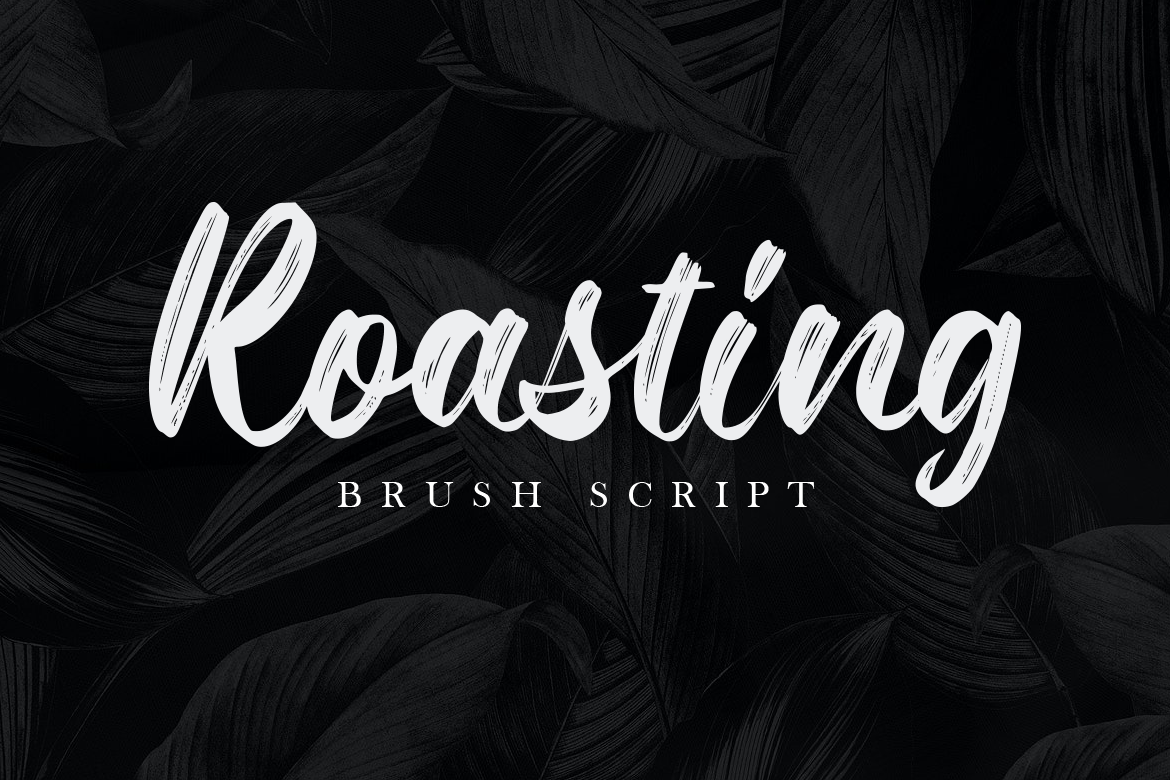
Introducing our newest product Roasting brush script font.
Roasting is suitable for all your design project needs such as: logo design, branding, covers, posters, magazines, wedding invitations, greeting cards, quotes and more.
Alternate, Ligature
Multilingual support - spread your message globally AÀÁÂÃÄÅCÇDÐEÈÉÌÍÎÏIÌÍÎÏNÑOØÒÓÔÕÖUÙÜÚÛWYÝŸÆßÞþ